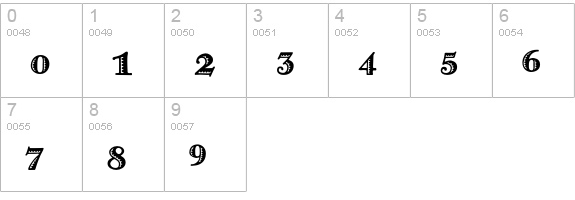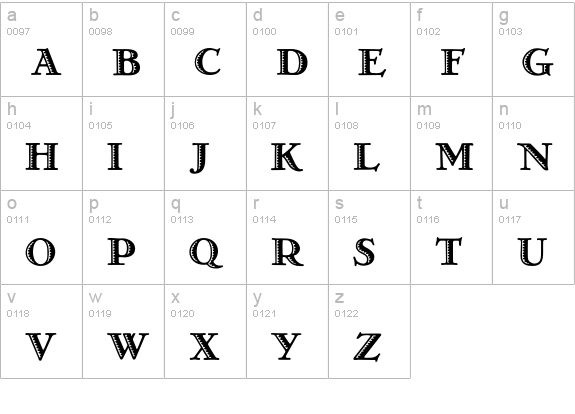
GrecoDeco-Inline Font Details
Introducing GrecoDeco-Inline font, a stylish and elegant typeface that effortlessly combines classical Greek elements with a modern deco flair. This unique font features clean lines, intricate details, and a touch of sophistication that sets it apart from the rest. With its harmonious balance of old-world charm and contemporary design, GrecoDeco-Inline is the perfect choice for projects that require a touch of timeless elegance. Best of all, GrecoDeco-Inline font is completely free to download at FontsMarket.com. Whether you're working on a branding project, designing invitations, or creating stunning graphics, this versatile font is sure to make a statement. Add a touch of class to your designs with GrecoDeco-Inline font and let your creativity shine. Download it today and elevate your work to new heights!